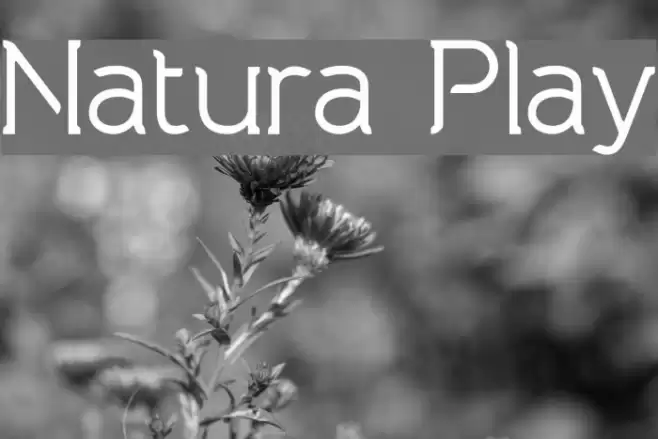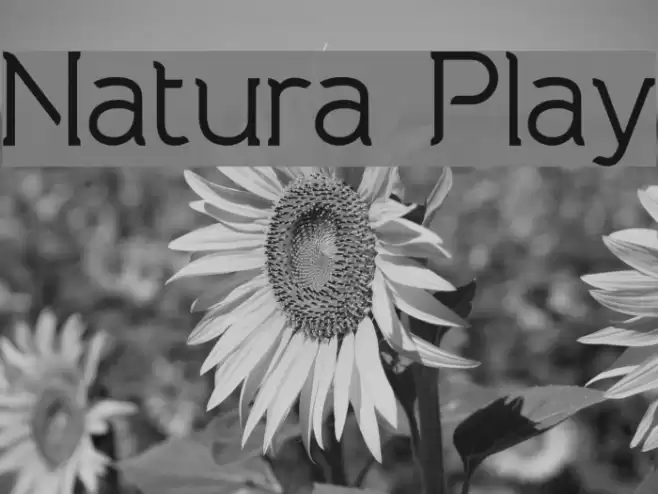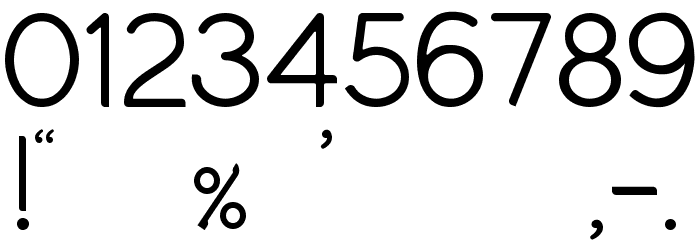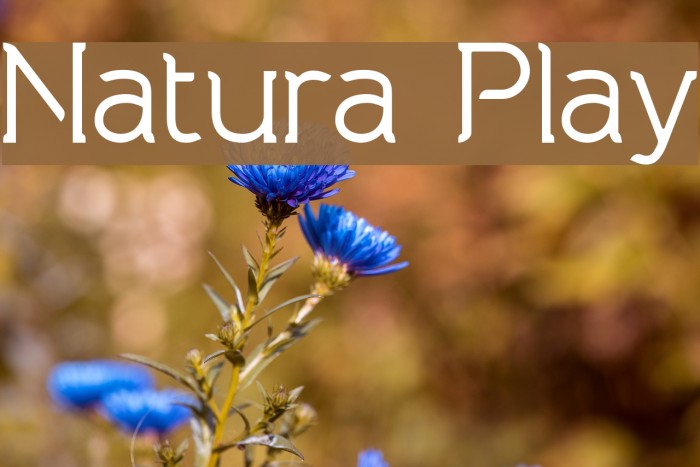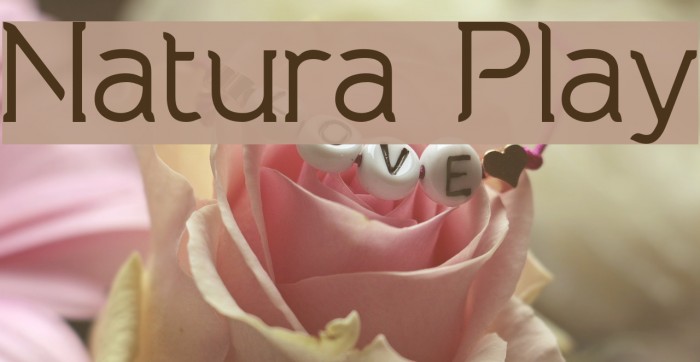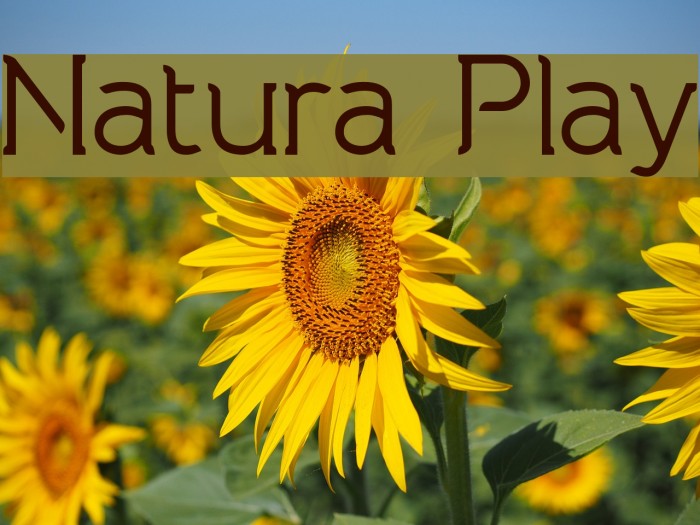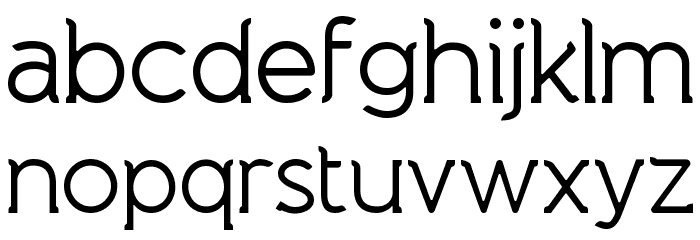
Natura Play Font
Natura Play Description
This font features a clean and modern sans-serif style with a geometric structure. The characters are well-balanced, offering a harmonious blend of curves and straight lines. Uppercase letters are bold and assertive, while lowercase letters maintain a friendly and approachable appearance. The numerals are clear and legible, making them suitable for various applications. Special characters are designed with simplicity and functionality in mind, ensuring they complement the overall aesthetic. This font is versatile, suitable for both digital and print media, and can be used effectively in a variety of design contexts.
A modern, geometric sans-serif font with clean lines and balanced proportions from Serif fonts.
- Proposed Projects: Ideal for branding, web design, advertising, and editorial layouts.